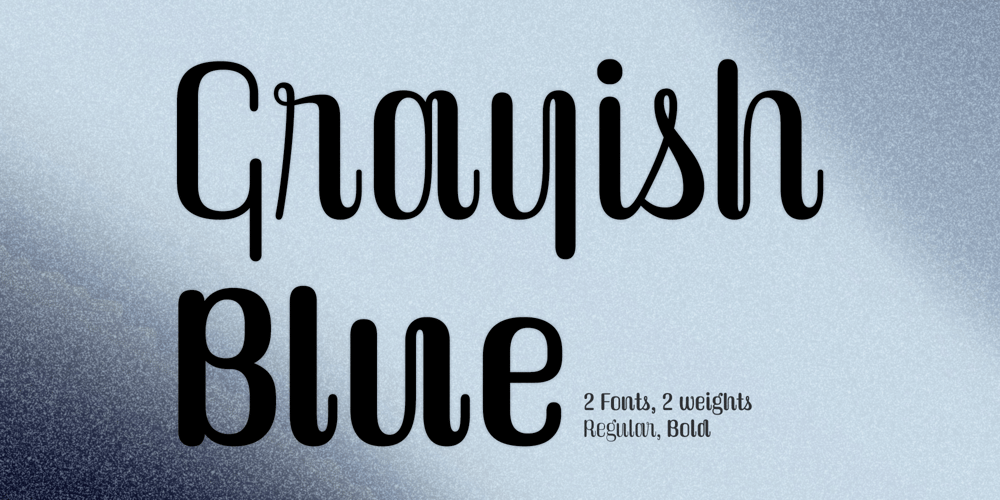
Grayishblue
Grayishblue font
Grayishblue Font Family was designed by Saebom Lee and published by HOHOHtype. Grayishblue contains 2 styles and family package options. “Grayishblue” is a unique rounded sans-serif typefamily. The family has 2 different weights.These fonts gives a clean and modern feel, making it easy to read and suitable for a variety of design applications. This typeface is often used for titles or headlines, or when aiming to create a visually striking effect. It can be adapted to various styles, making it a versatile choice for websites, posters, advertisements, and other media.